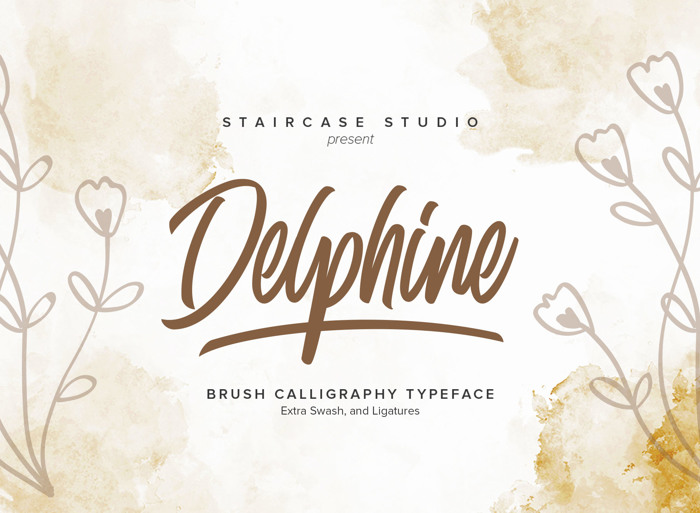
Delphine Font
Delphine with font style brush calligraphy typeface. A collection of letters and numbers suitable your projects also great for Logotype, Branding Design, Logo Design, Digital Lettering Arts, T-Shirt/Apparel, Poster, Magazine, Signs, Advertising Design, and any design needs.